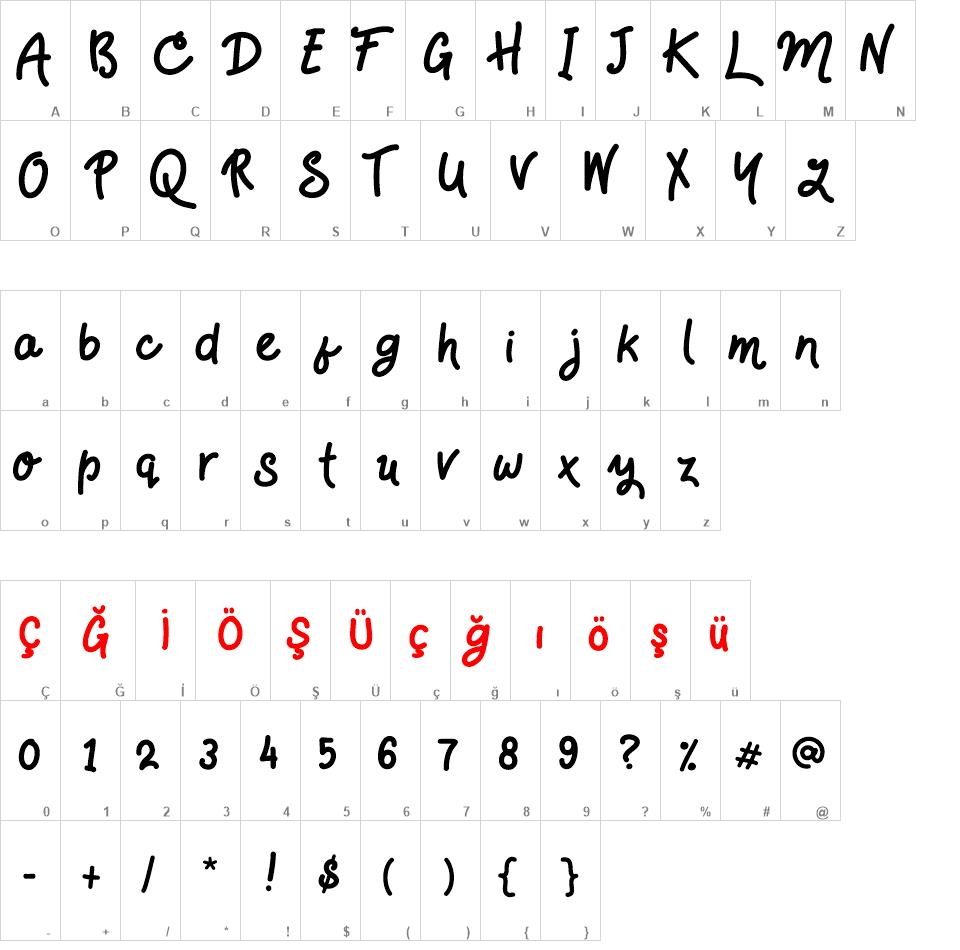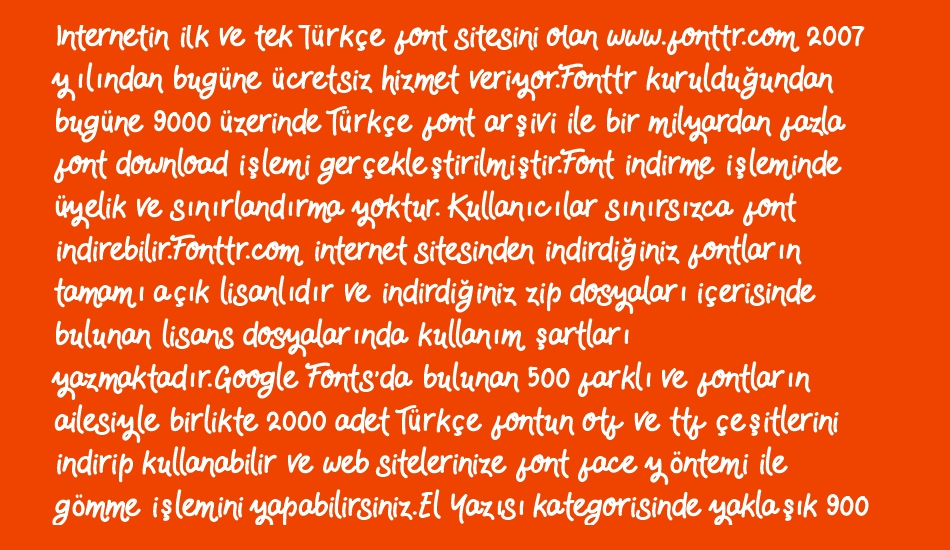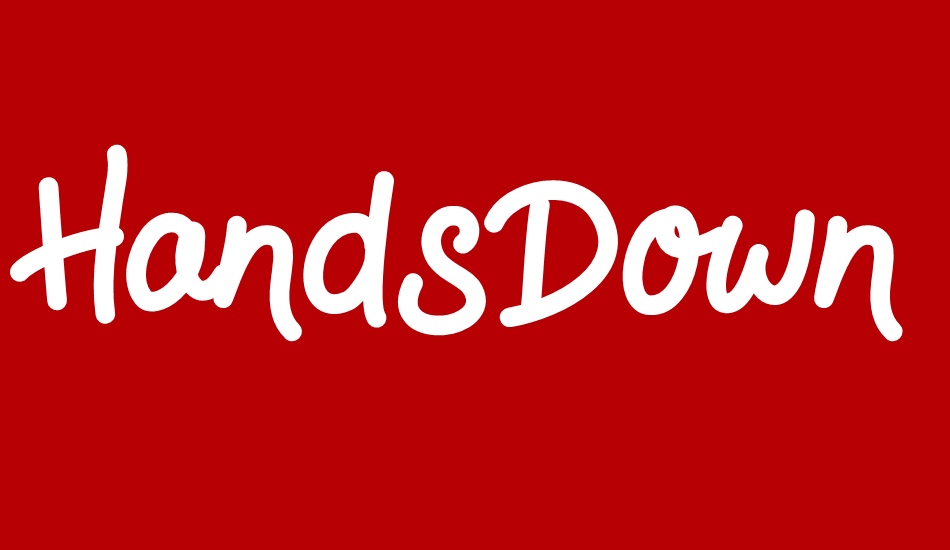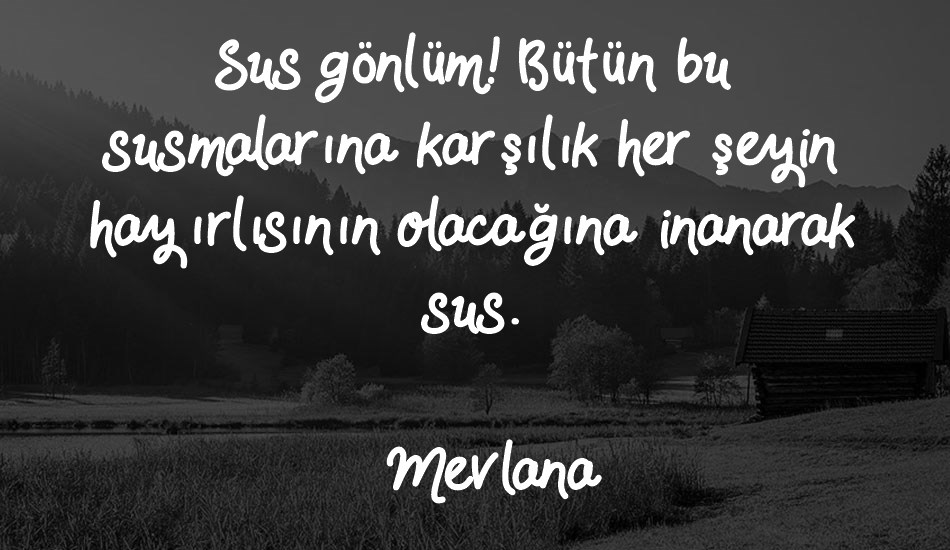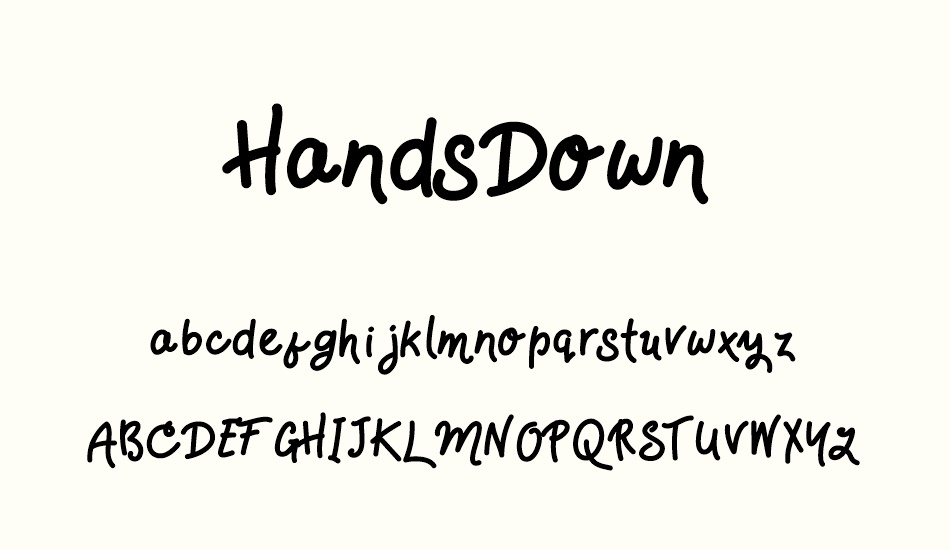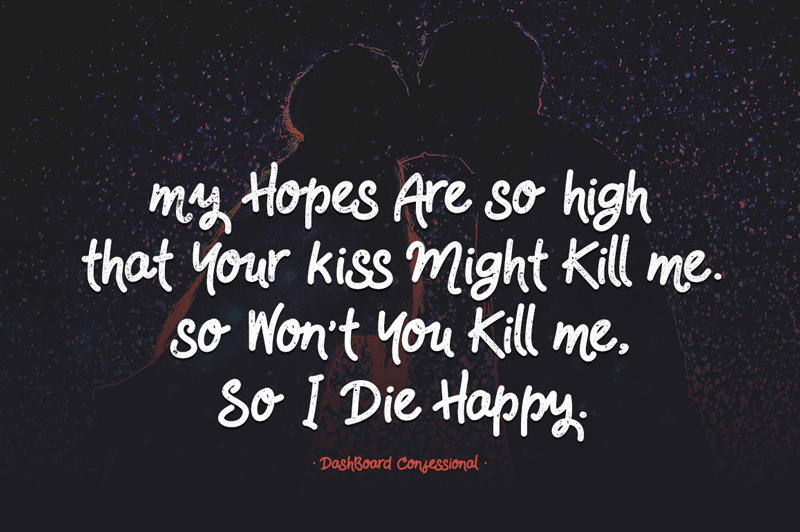
HandsDown font
HandsDown
Handsdown named after my very fav song ever, Hands Down by Dashboard Confessional.
Handmadely created on iPad with my finger. It’s so simple, it even has no alternates or ligatures. But already support for multilanguage characters. Just try it, you’ll love it ;)